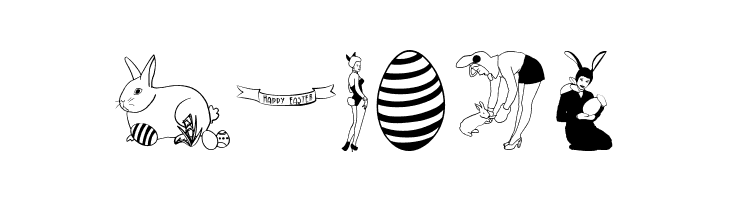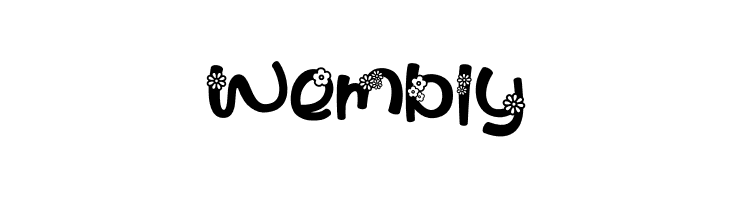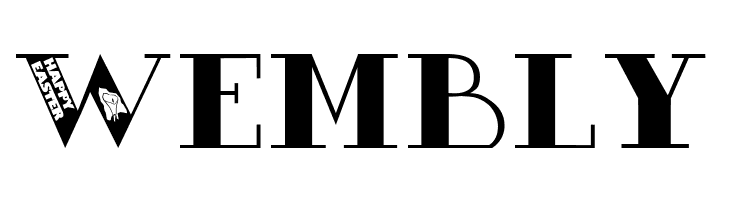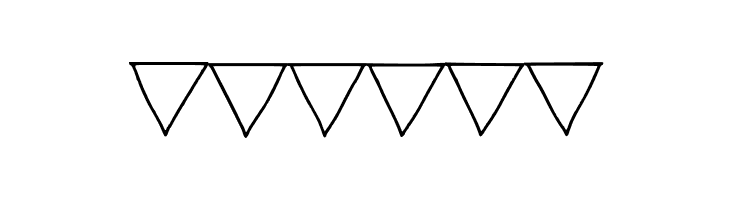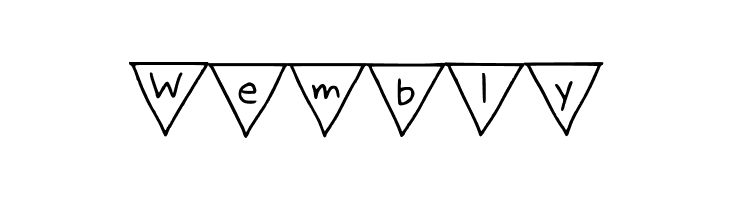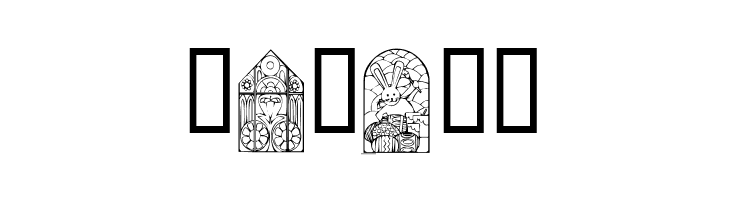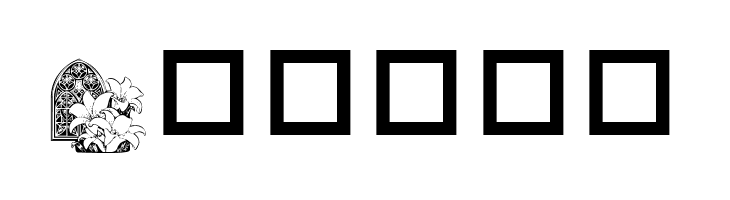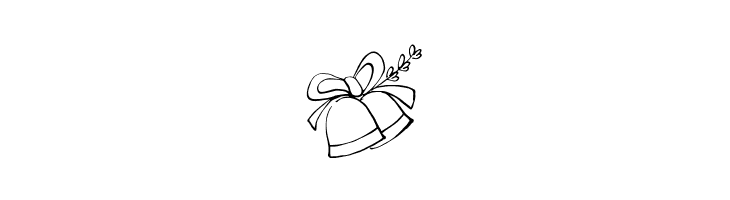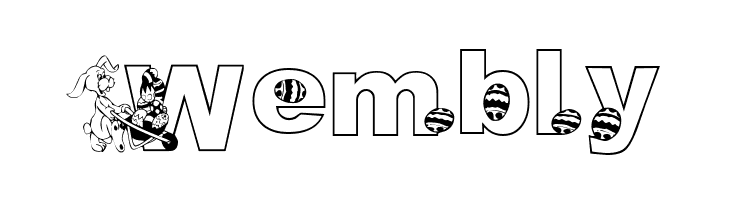
Playful handwritten font with rounded edges.
Bold decorative font with Easter bunny motifs integrated into the letterforms.
A decorative font with Easter-themed square illustrations.
A decorative Easter-themed font with playful illustrations replacing characters.
Easter-themed decorative display font with illustrated glyphs.
A decorative font with Easter-themed illustrations for each character.
Decorative dingbat font with Easter-themed illustrations.
A decorative Easter-themed font with playful illustrations in each character.
A festive, decorative font with Easter-themed elements and bold styling.
Whimsical Easter-themed dingbat font with cartoon illustrations.
A decorative font using rabbit silhouettes for each character.
A playful, decorative font with characters in triangular banners.
Light, outlined triangular banner shapes forming a decorative font.
A playful, decorative font with characters in triangular banners.
Decorative black triangular pennant banner pattern.
A decorative font with Easter-themed stained glass window illustrations.
A decorative font with holiday-themed icons for various celebrations.
Easter-themed dingbat font with detailed illustrations.
Easter-themed dingbat font with playful illustrations.
A playful, decorative font with Easter-themed illustrations and text.
A playful, Easter-themed decorative font with outlined letters and festive graphics.
A decorative font with characters inside cornucopia shapes, perfect for festive themes.
Illustrative Easter-themed decorative font with detailed festive icons.
A playful and elegant collection of Easter-themed icons, perfect for festive designs.
A playful, decorative font with characters enclosed in flag-like shapes, ideal for festive designs.
A decorative, Easter-themed font with playful elements and intricate patterns.
Whimsical, vintage Easter-themed decorative font with illustrated glyphs.
A playful, flower-adorned font with bold, rounded characters.